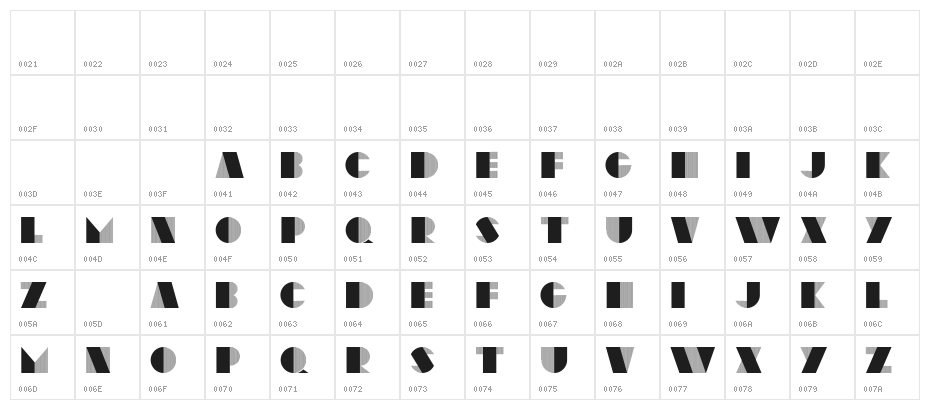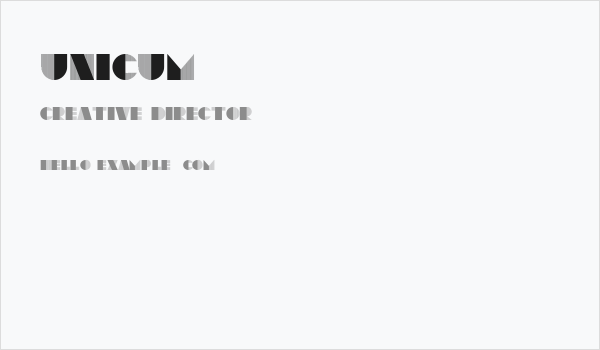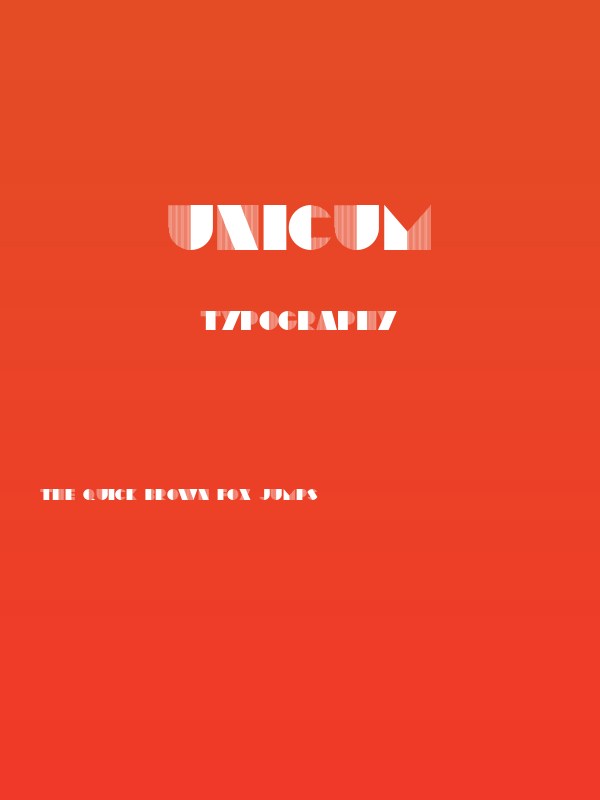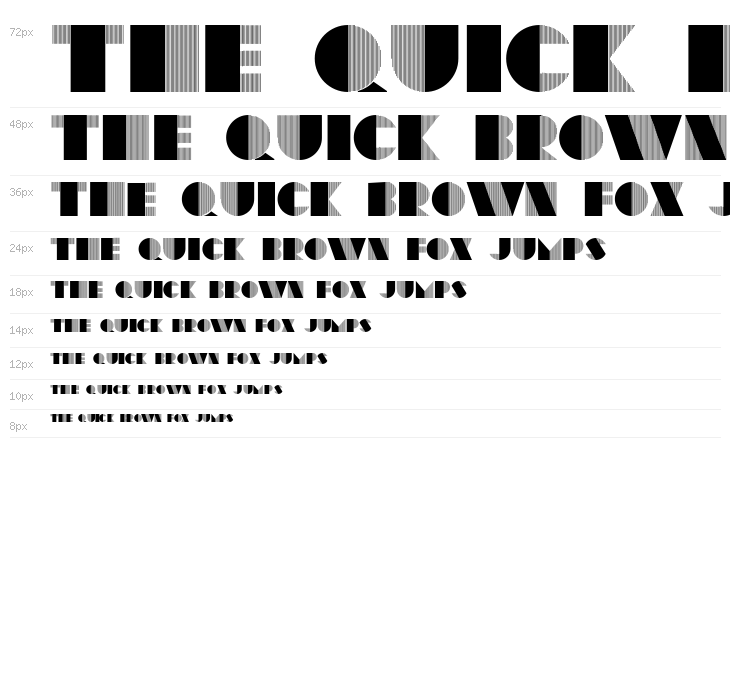
Unicum Font
Unicum Description
This font features a bold and striking design with geometric elements that create a sense of modernity and sophistication. The characters are constructed with a combination of solid and striped patterns, giving them a unique and artistic appearance. The uppercase letters are particularly prominent, with thick strokes and angular shapes that convey strength and stability. The overall design is highly decorative, making it suitable for eye-catching displays and creative projects. The font's distinctive style is ideal for use in branding, advertising, and any context where a bold statement is needed.
| Proposed Projects | Ideal for branding, advertising, posters, and creative design projects. |